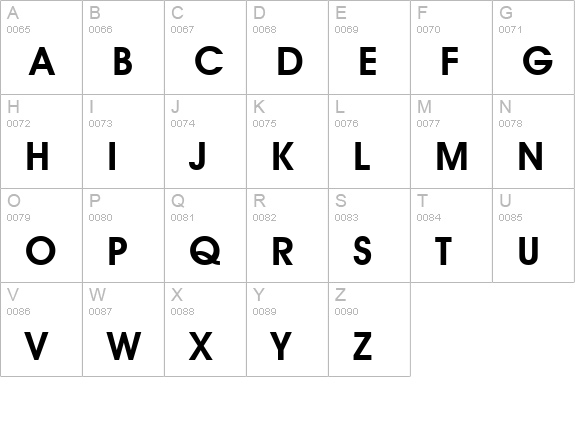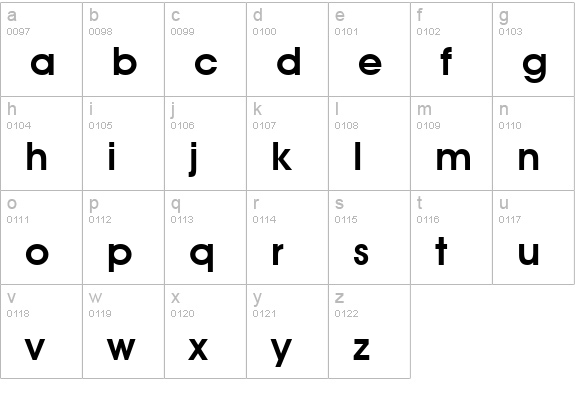
Avant Garde Demi BT is a sub-bold, structured variant in the Avant typeface family \xE2\x80\x94 well suited to sub-headlines and emphasised passages.
Avant Garde Demi BT font is a bold and modern typeface that exudes sophistication and creativity. With its unique geometric shapes and sleek lines, this font is perfect for making a statement in any design project. Whether you are creating a poster, logo, or website, Avant Garde Demi BT will add a touch of avant-garde style to your work. What sets Avant Garde Demi BT apart is its ability to strike a balance between boldness and elegance, making it a versatile choice for both headings and body text. The strong, sans-serif characters are easy to read yet have a distinct flair that sets them apart from more traditional fonts. And the best part? Avant Garde Demi BT is available for free download at FontsMarket.com. So whether you're a professional designer looking for a new font to add to your collection or a hobbyist looking to spice up your personal projects, Avant Garde Demi BT is the perfect choice. Download it today and let your creativity soar with this stunning font!